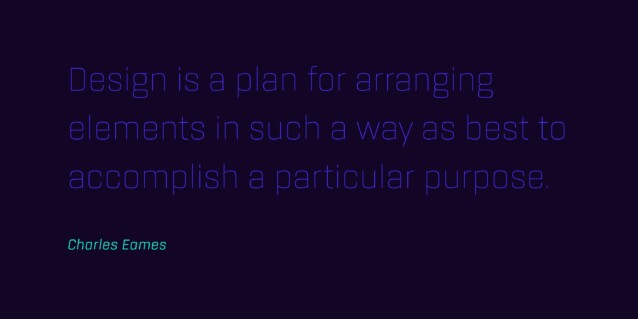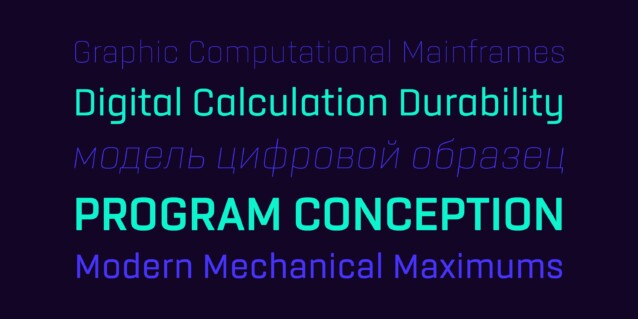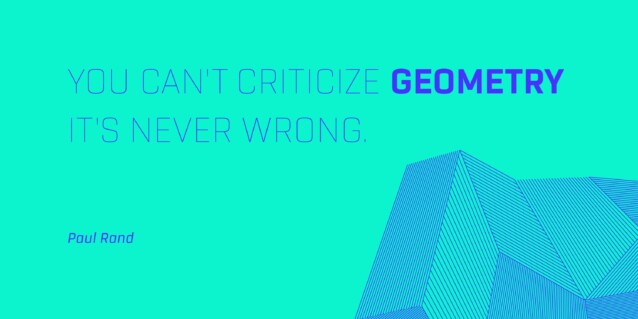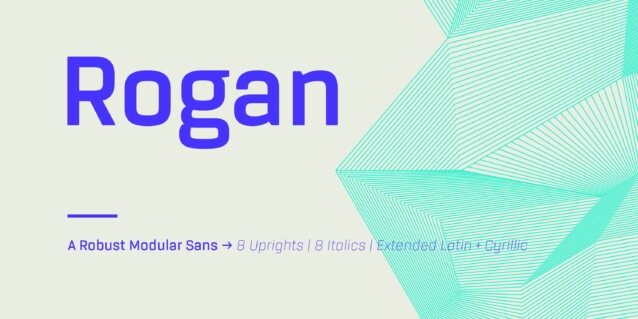
Rogan Font Family
Rogan Font is the perfect choice for clean, minimalist, and professional designs. Rogan: A Robust Modular Sans Rogans clean lines started out as an exercise in modularity and geometric forms. This initial construction approach was then adapted to improve the functionality of the family; Breaking away from the strictly modular system in exchange for more refinement and clarity. The resulting forms display a refined contemporary feeling alongside a hi- tech industrial element.